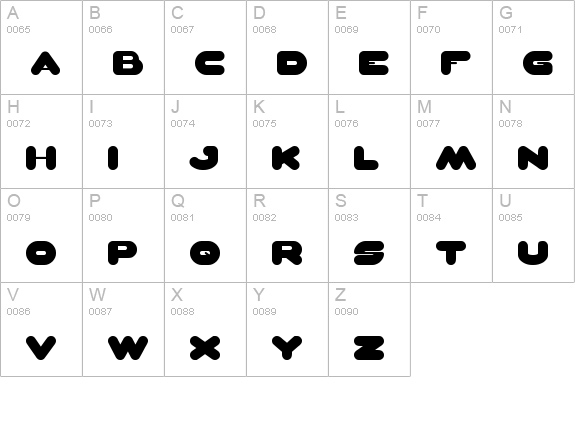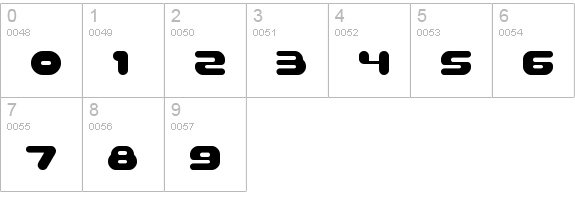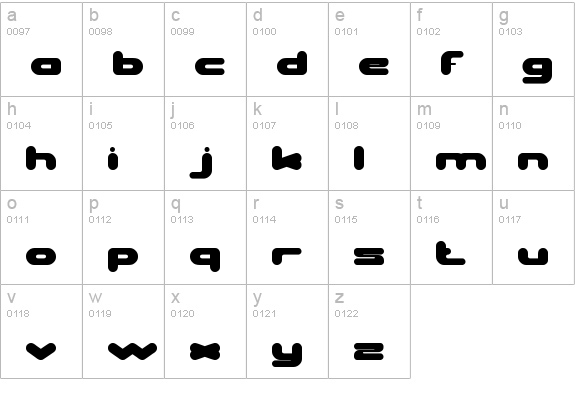
Evergreen Font Details
Introducing Evergreen font, a timeless and versatile typeface that effortlessly combines elegance with modernity. With its graceful curves and clean lines, Evergreen is the perfect choice for projects that require a touch of sophistication and class. Designed with meticulous attention to detail, this font offers a wide range of weights and styles, allowing you to create stunning designs across various mediums. Whether you're designing a logo, crafting a wedding invitation, or working on a branding project, Evergreen is sure to elevate your work to new heights. What sets Evergreen apart is not just its impeccable design, but also its accessibility. We believe that great design should be available to everyone, which is why Evergreen font is freely available to download at FontsMarket.com. This means that you can enjoy the beauty and versatility of Evergreen without any financial constraints. So go ahead, unleash your creativity and explore the endless possibilities that Evergreen font has to offer. Download it for free today at FontsMarket.com and discover why this font is a must-have for designers, creatives, and typography enthusiasts alike. Make a lasting impression with Evergreen font, where timeless elegance meets the freedom of expression.